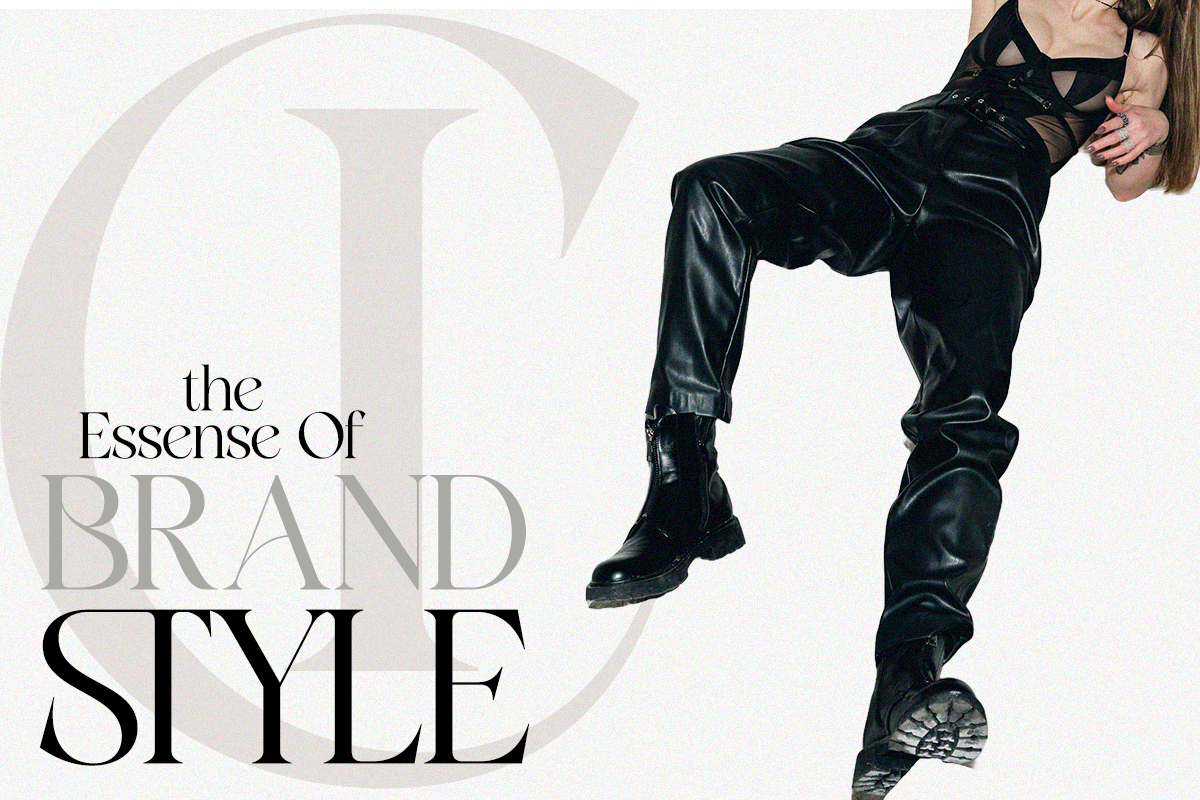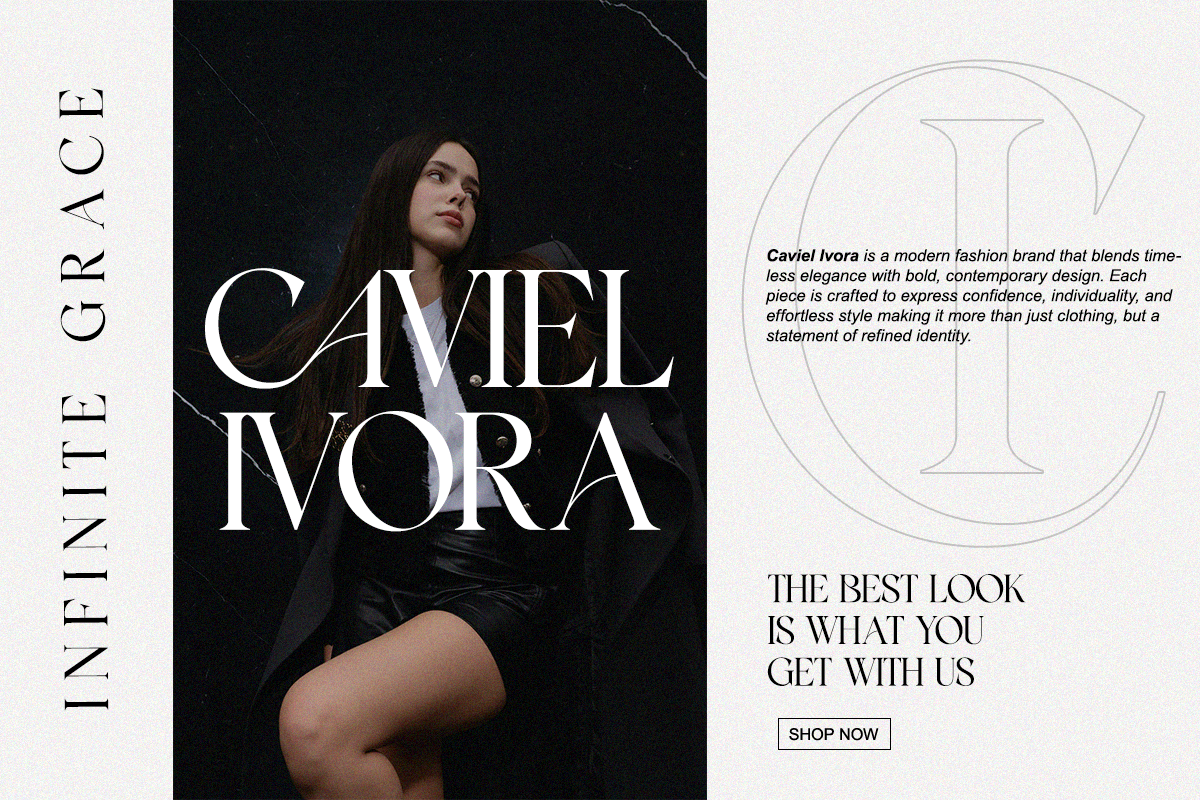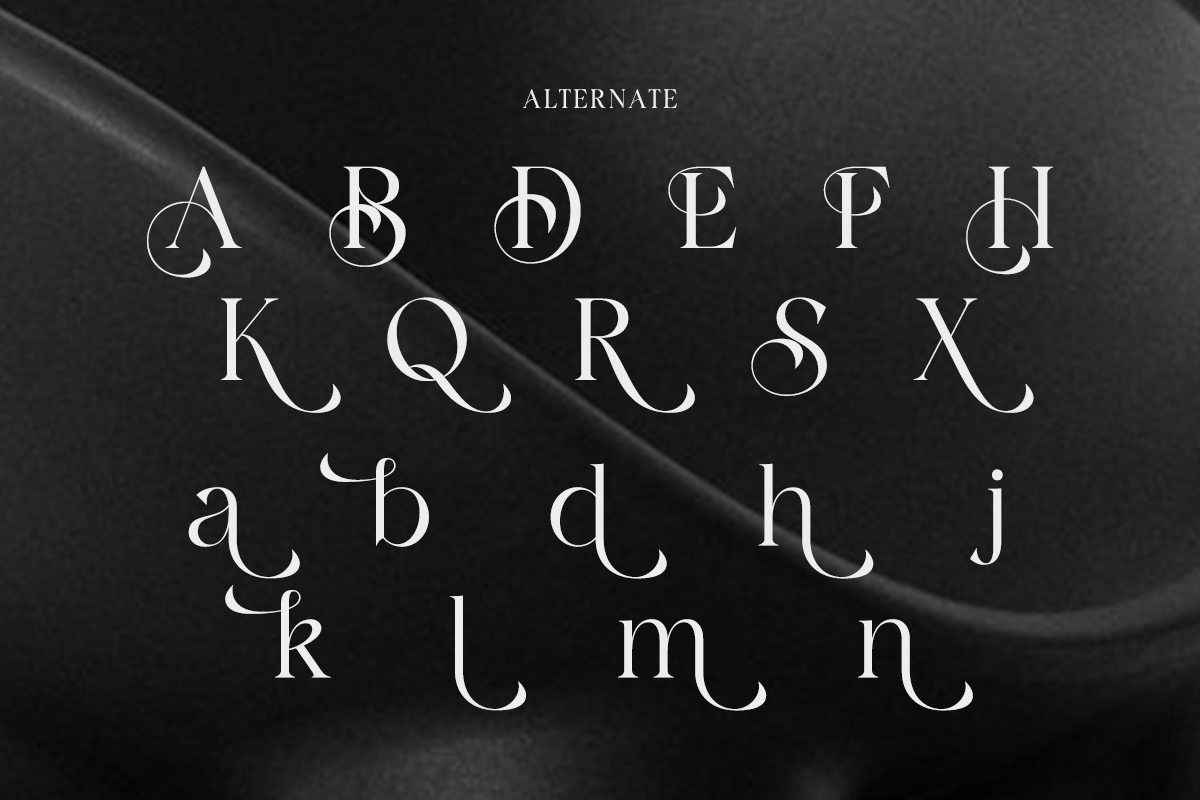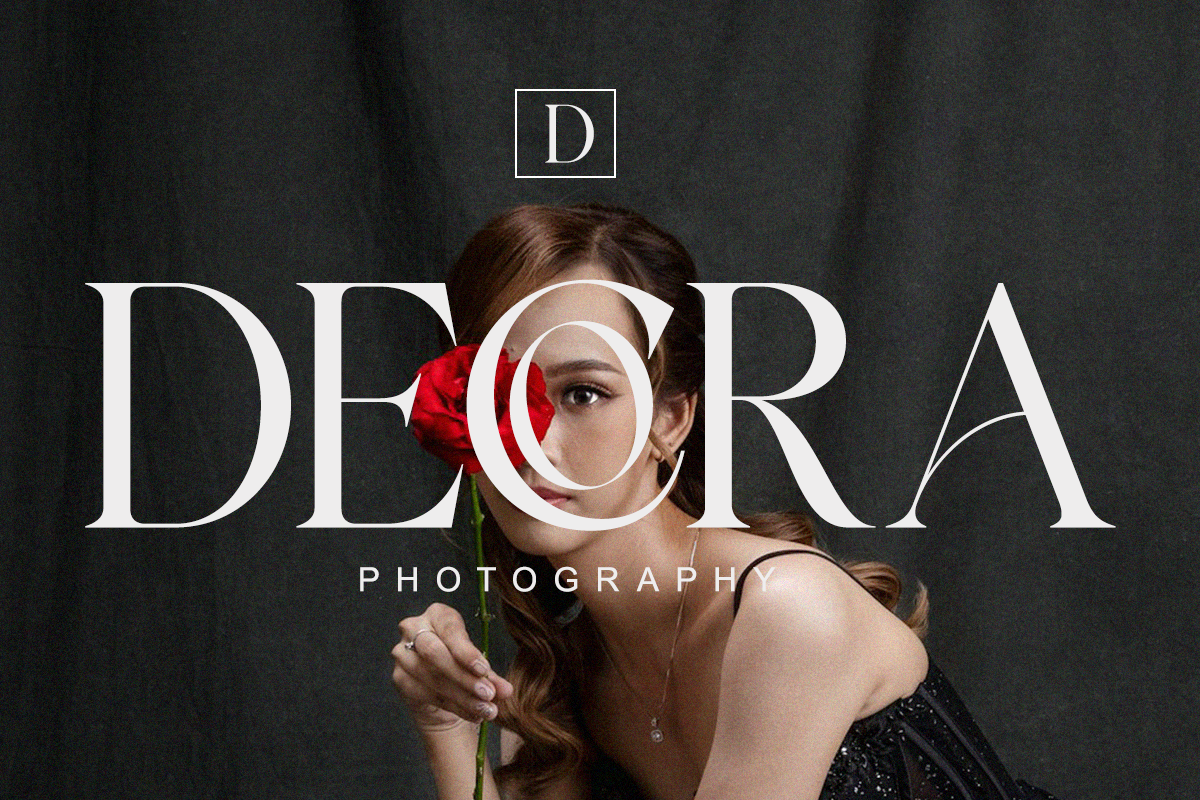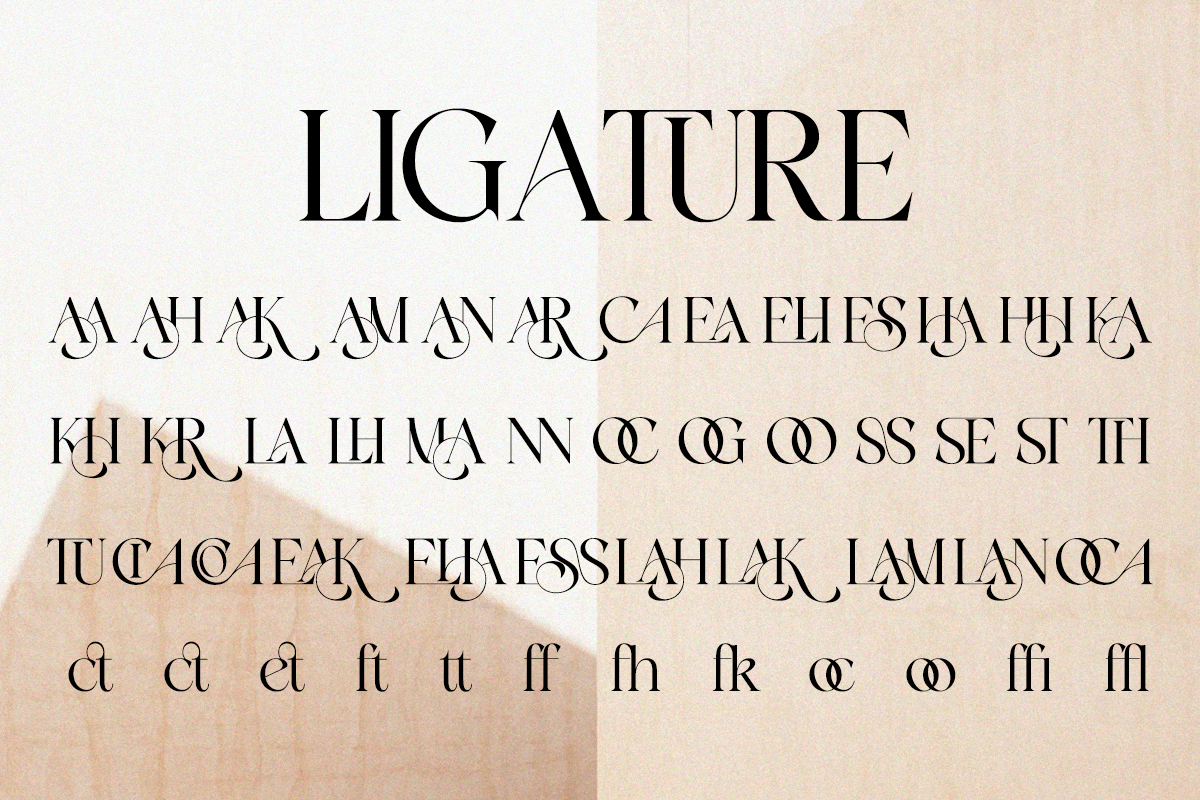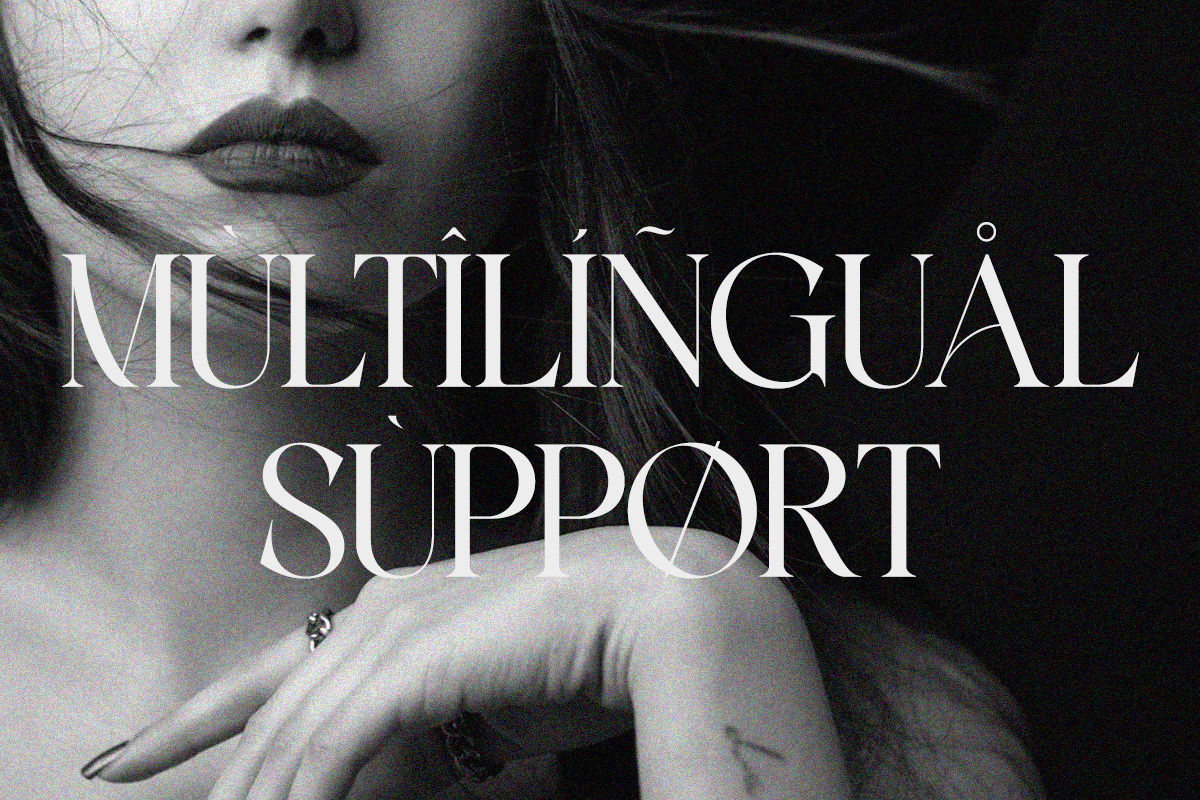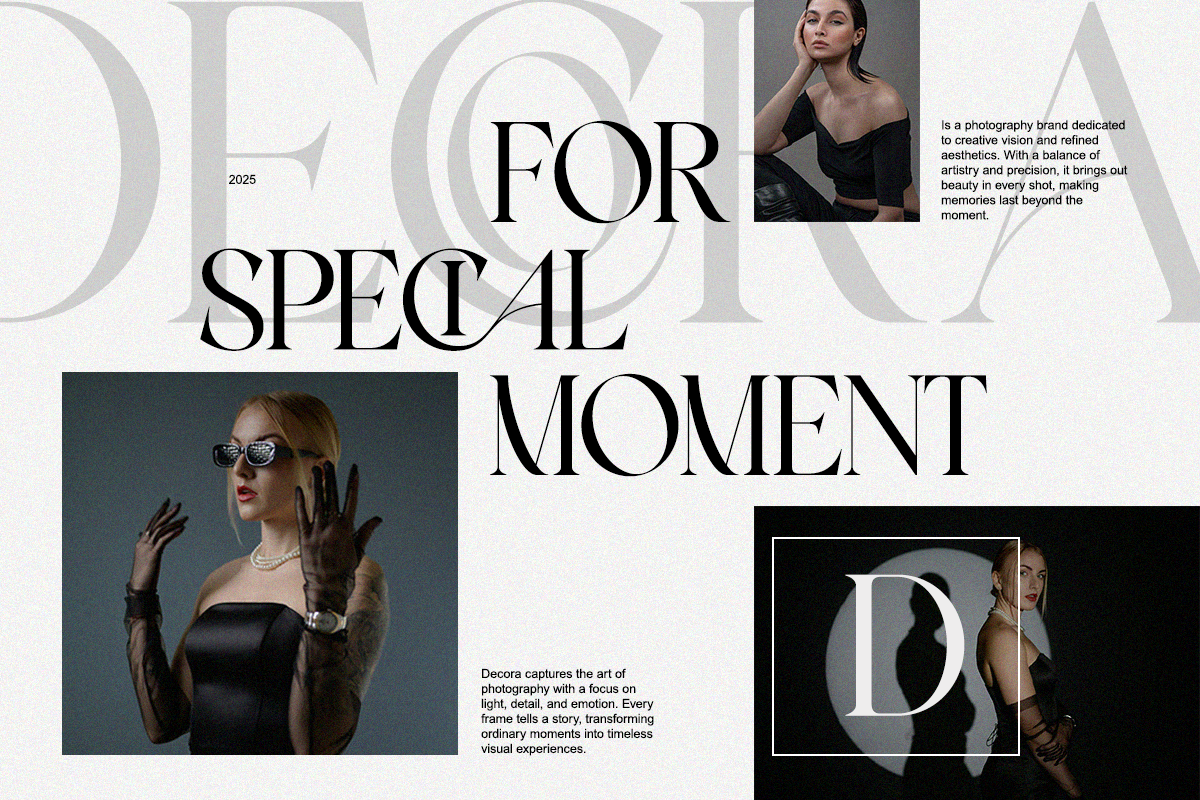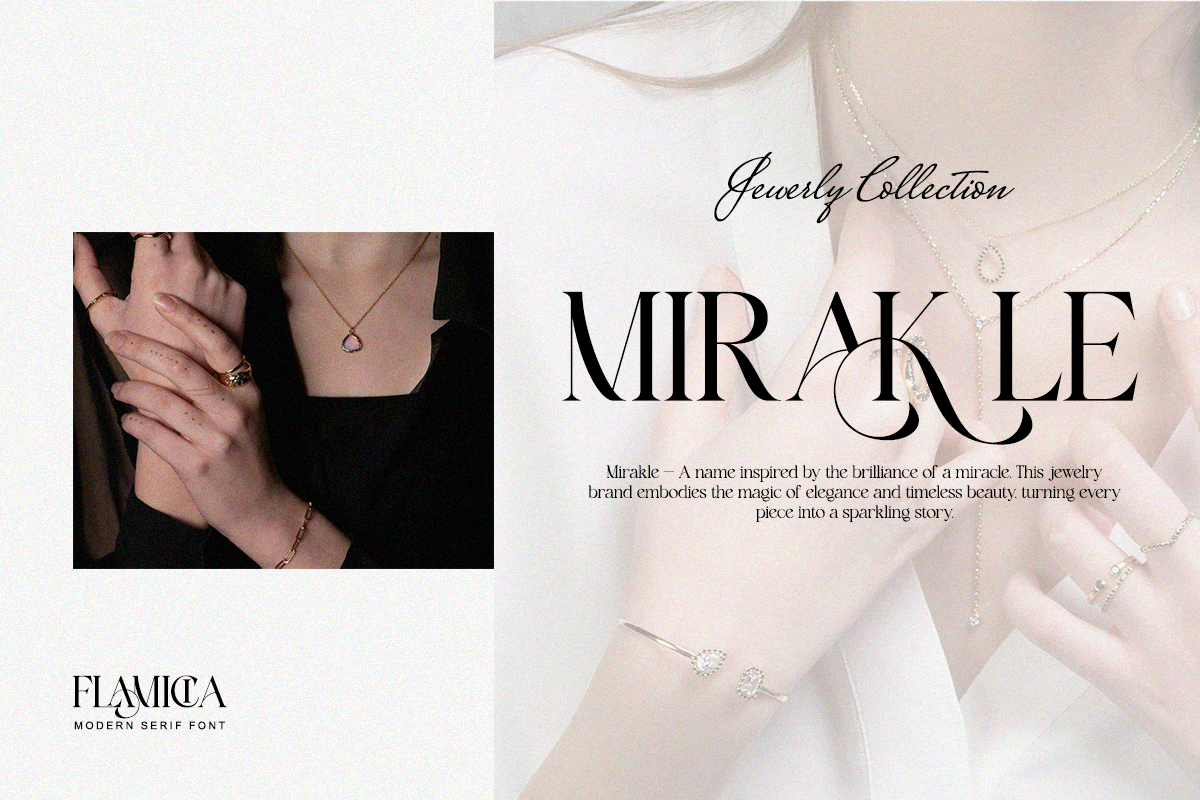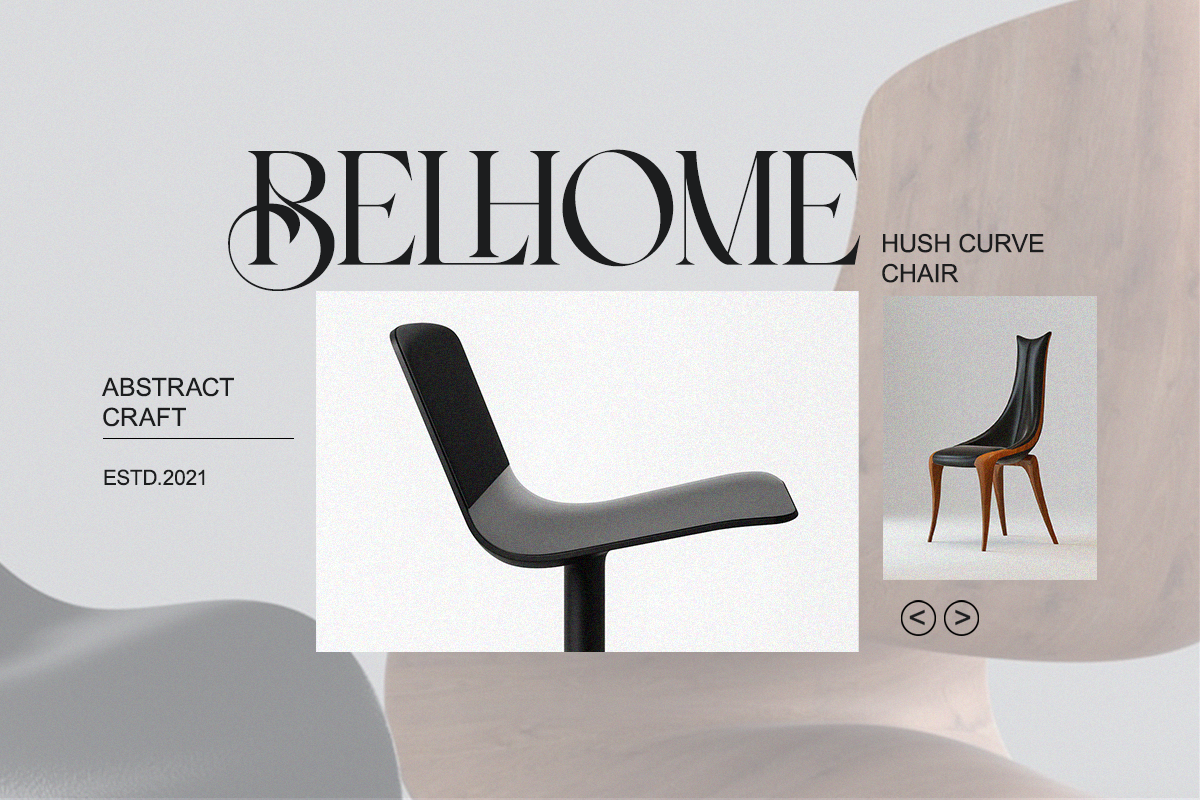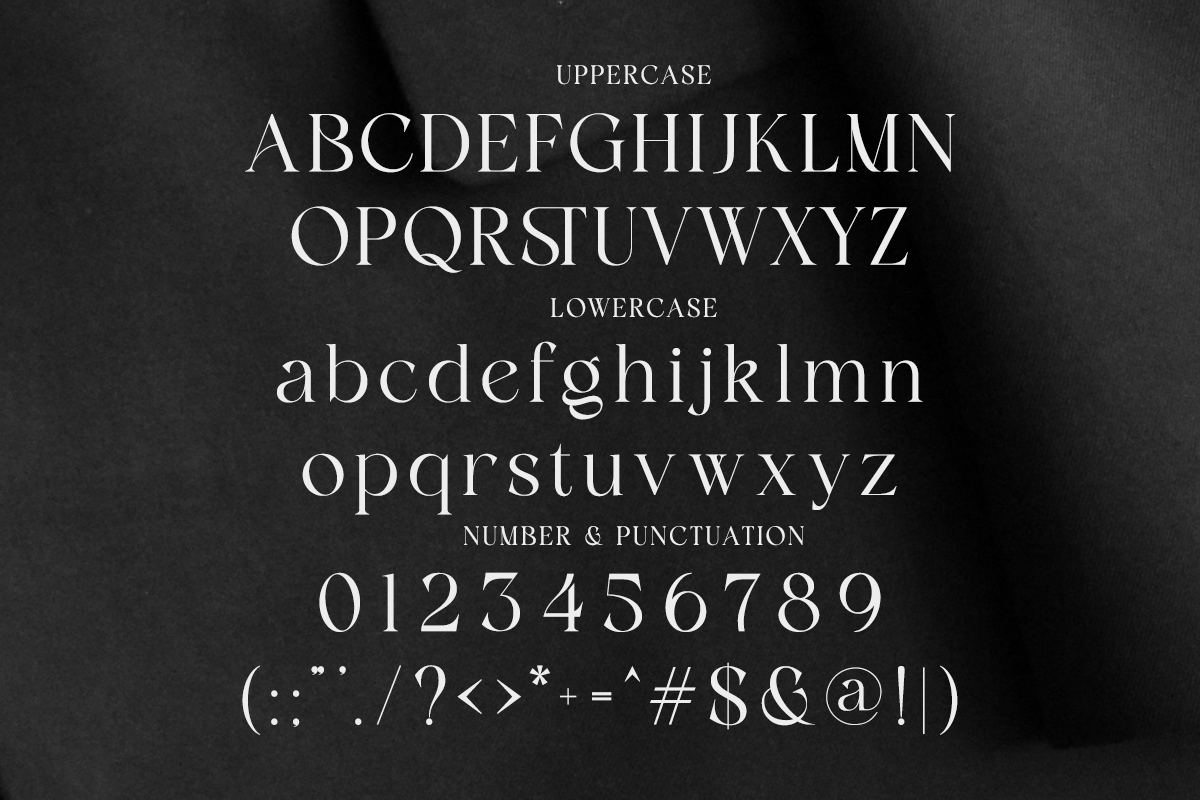
Flamicia - Luxury Modern Editorial
Meet Flamicia, a luxury serif typeface inspired by editorial design and modern fashion aesthetics. It features high-contrast forms and stylish ligatures that add sophistication to every layout. Perfect for magazine covers, beauty logos, packaging, and high-end editorial projects, Flamicia brings grace and power into every design.
Perfect For: Brand identity, editorial design, packaging, fashion advertising, and beauty branding.